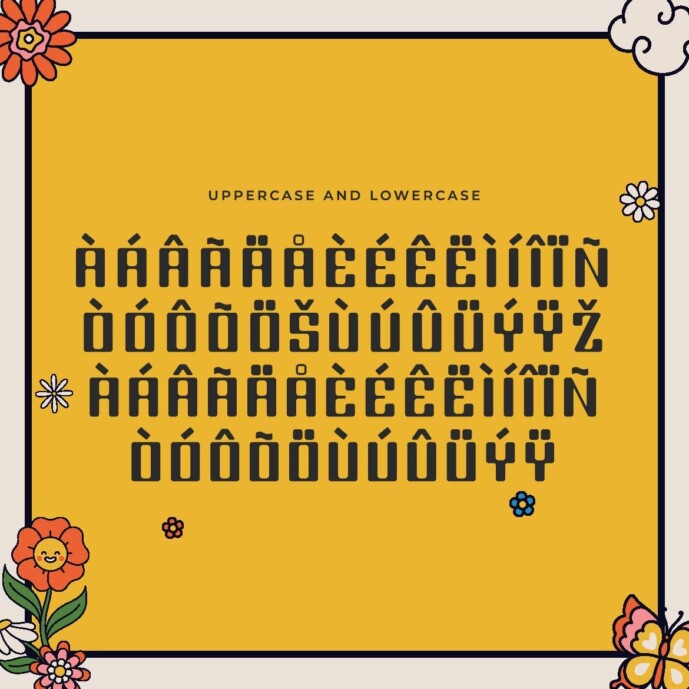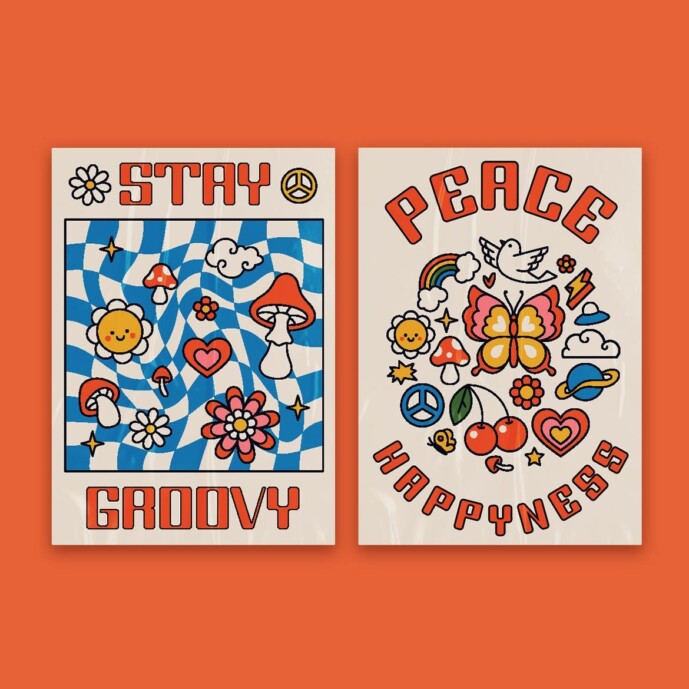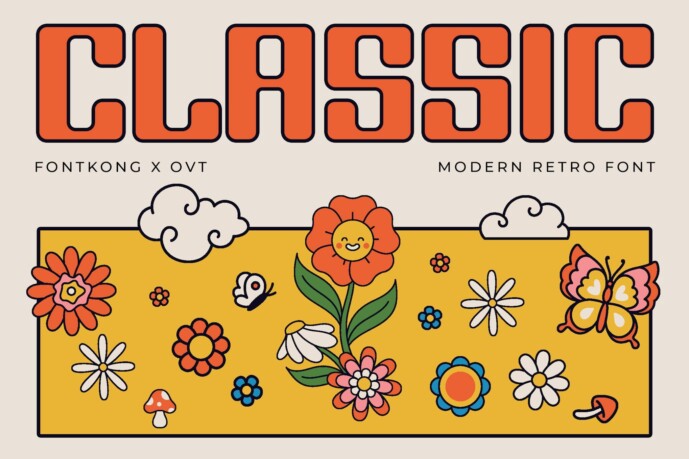
Classic Display Font
Classic Display Font, a modern retro font that perfectly balances vintage charm with contemporary style. Perfect for graphic designers, typographers, and creatives looking to evoke nostalgia with a fresh twist, Classic offers a timeless aesthetic that stands out in all projects.
Perfect for branding, posters, logos, packaging and editorial design, Classic’s bold and stylish characters draw inspiration from retro typography while maintaining a modern touch. Each letter is meticulously crafted for versatility and legibility, making your designs both nostalgic and and current.
The “Classic” font includes a complete set of uppercase and lowercase letters, numbers, punctuation marks and special characters. This comprehensive set ensures easy integration into various design applications, from eye-catching branding to sophisticated editorial layouts.
Relive the past with a modern twist with Classic, the retro font that brings vintage charm to contemporary designs.